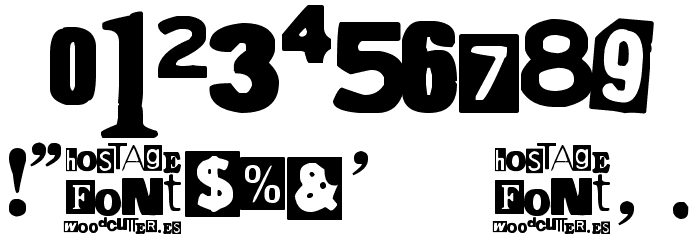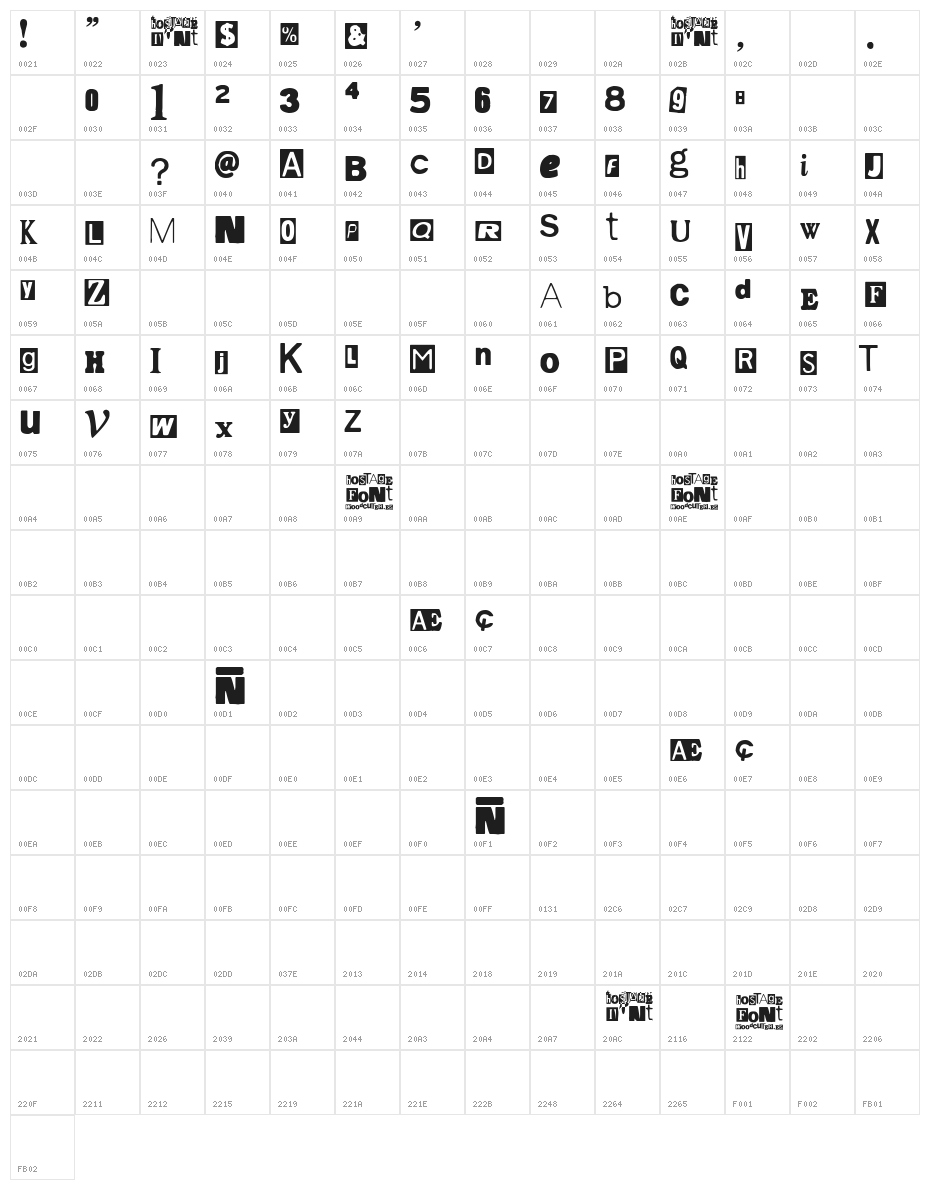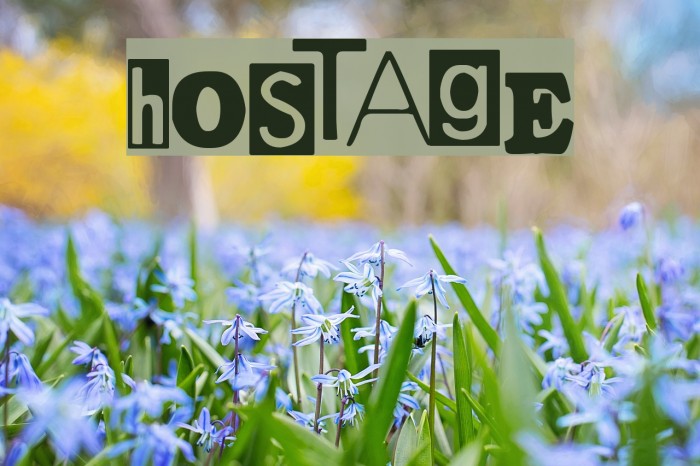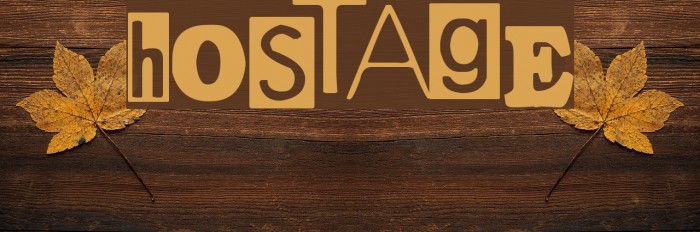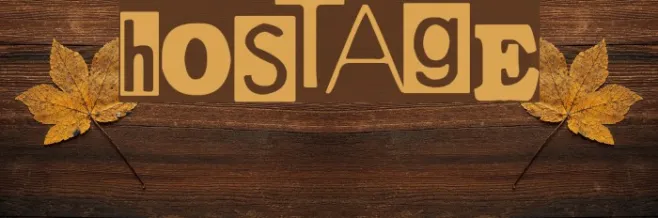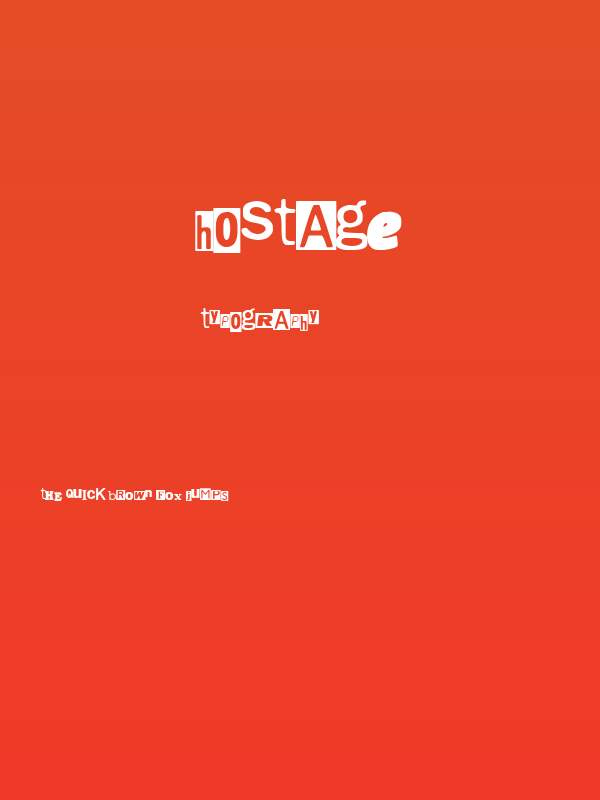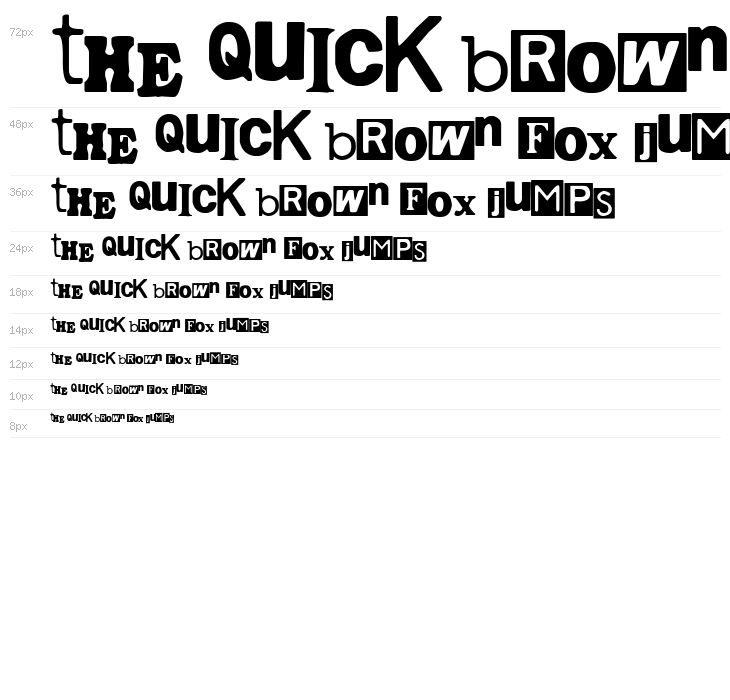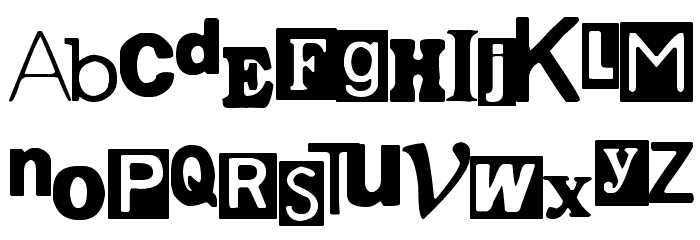
Hostage Font
Hostage Description
This font features a highly eclectic and playful design, reminiscent of cut-out letters from magazines or newspapers. Each character is uniquely styled, with varying thicknesses and shapes, creating a collage-like effect. The uppercase and lowercase letters are distinct, with some characters enclosed in blocks and others free-standing. Numbers and special characters follow the same quirky, mismatched style, adding to the overall chaotic yet artistic appearance. This font is perfect for projects that require a bold, unconventional look.
| Proposed Projects | Ideal for ransom note-themed designs, creative posters, edgy branding, or artistic book covers. |